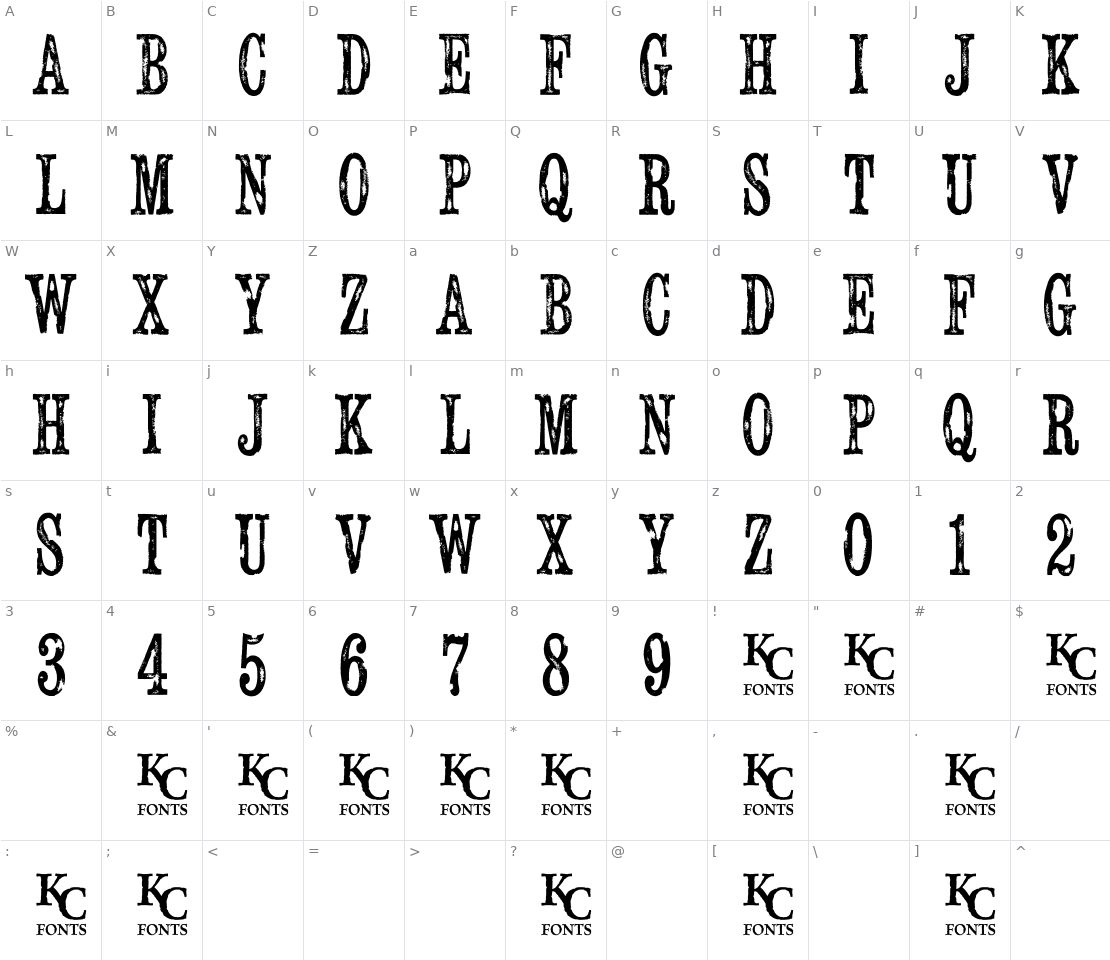
Serial Publication
Serial Publication is a condensed, uppercase typewriter face from KC Fonts with a heavily worn, inked-over quality that makes every letter look like it was hammered through a failing ribbon. The narrow proportions and distressed texture give it a gritty, editorial feel, somewhere between a true crime case file and a photocopied zine. Best for headlines, titles, and short blocks of text where you want that battered, analog urgency.